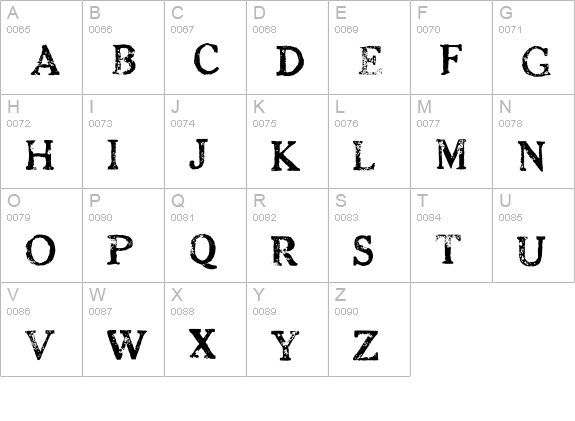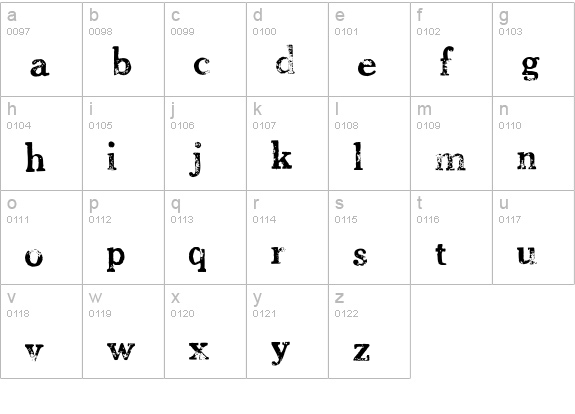
CheltPressLightVariegated Font Details
CheltPressLightVariegated is a stunning and versatile font that exudes elegance and sophistication. With its unique blend of light and variegated styles, this font is perfect for adding a touch of creativity to your projects. Whether you're designing invitations, logos, or branding materials, CheltPressLightVariegated will surely make a lasting impression. The best part? CheltPressLightVariegated is free to download at FontsMarket.com! Take advantage of this amazing offer and enhance your designs with this beautiful font today. Don't miss out on the opportunity to elevate your creativity with CheltPressLightVariegated – download it now and let your imagination soar.